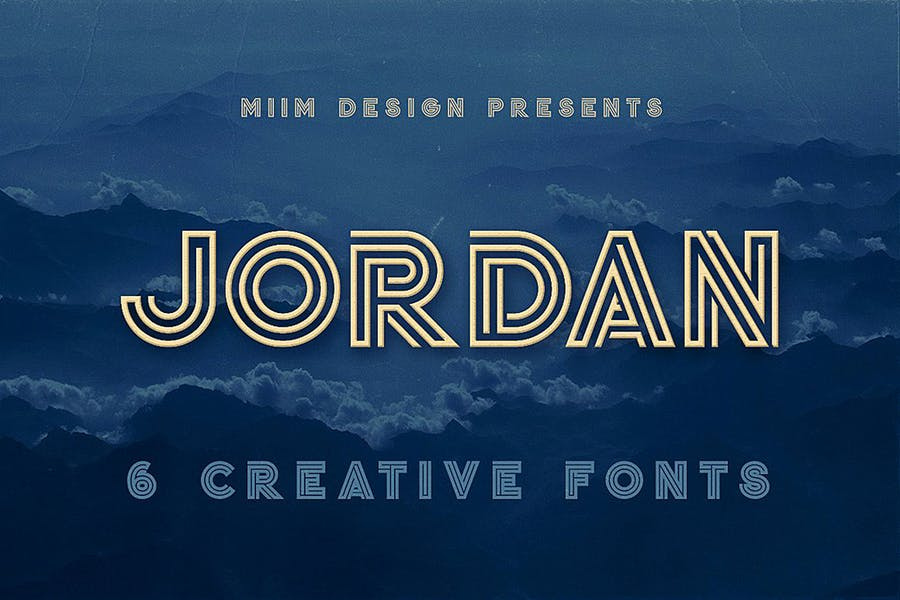
Jordan - Display Font Free Download
Jordan - Display Font is perfect for athletic brand identities, sports team logos, fitness equipment packaging, basketball tournament materials, athletic apparel designs, sports facility signage, championship event promotions, performance gear branding, competitive sports marketing, and dynamic training materials.
Jordan - Display Font creates excitement because it embodies the pinnacle of athletic achievement and competitive excellence with its powerful, dynamic letterforms and championship-caliber character design. The font's bold presence and athletic precision instantly convey peak performance and winning mentality, making any brand appear dominant and professionally competitive. Its carefully engineered proportions and sports-inspired styling create an immediate sense of victory that captivates audiences seeking athletic excellence, competitive advantage, and products that celebrate the relentless pursuit of championship-level performance and sporting greatness.
The Jordan - Display Font family includes multiple weights and styles: Regular, Bold, Black, Ultra Black, Light, Medium, Italic, Condensed, Extended, and Championship versions. Each variant maintains the font's signature athletic character while offering different levels of competitive intensity and performance styling suitable for various sports and fitness applications.
This championship typeface represents the ultimate expression of athletic typography for brands demanding peak performance and competitive dominance. Jordan - Display Font Free Download provides sports organizations and athletic brands with access to premium performance typography that embodies the spirit of championship excellence and athletic mastery. The font's competitive design and winning character make it ideal for organizations requiring typography that communicates athletic authority and inspires peak performance across diverse sporting environments. Whether you're developing brand identities for professional sports teams, creating promotional materials for athletic competitions, designing packaging for performance equipment, or producing marketing content for fitness organizations, this font delivers the championship presence that resonates with athletes and sports enthusiasts seeking excellence, competition, and the ultimate achievement of athletic goals. Its exceptional performance in high-impact applications ensures maximum visibility and competitive advantage across sports venues, athletic facilities, and performance-focused digital platforms while maintaining readability and athletic integrity. The font excels in applications requiring immediate athletic recognition and championship appeal. Sports industry professionals appreciate its ability to convey peak performance while remaining highly functional for various athletic communications and competitive promotional materials. The comprehensive character set includes sports symbols and extensive international language support, making it perfect for global sports brands and international athletic organizations seeking to communicate championship excellence, competitive spirit, and athletic mastery to diverse worldwide audiences who pursue athletic greatness, embrace competitive challenges, and strive for the ultimate achievement of sporting excellence and championship victory in their chosen athletic endeavors.